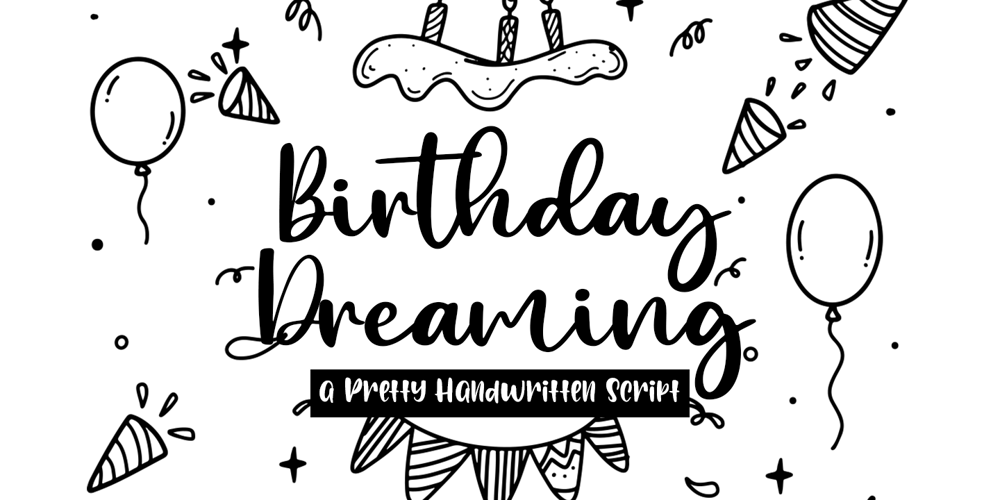
Birthday Dreaming Font Family was designed by Sarwo Edhi Prayitno and published by Haksen. Birthday Dreaming contains 1 styles and family package options. Introducing a cute handwriting “Birthday Dreaming” Script Font!If you are needing a touch of casual modern calligraphy for your designs, this font was created for you!This font works best in a program that supports OpenType features such as Adobe Indesign, Adobe Illustrator CC and CS, or Adobe Photoshop CC and CS also CorelDrawCheers!